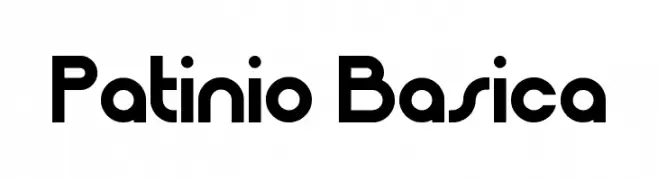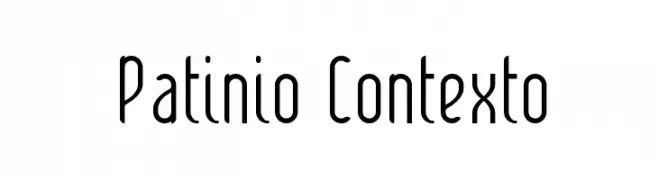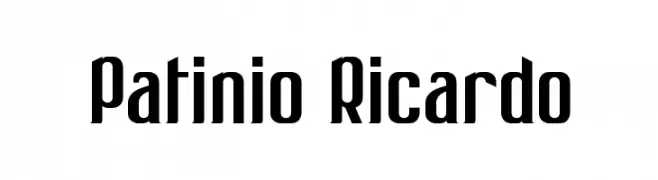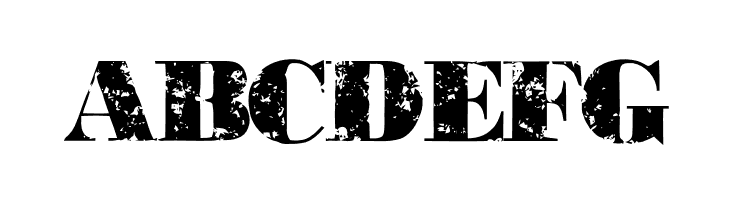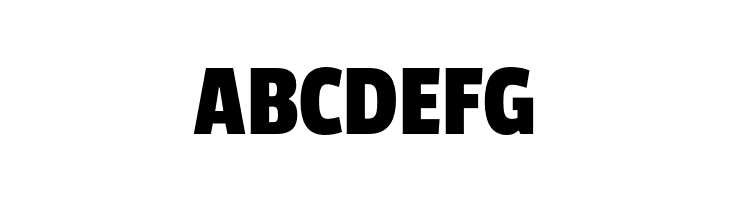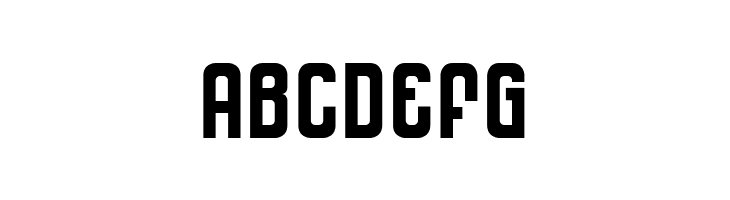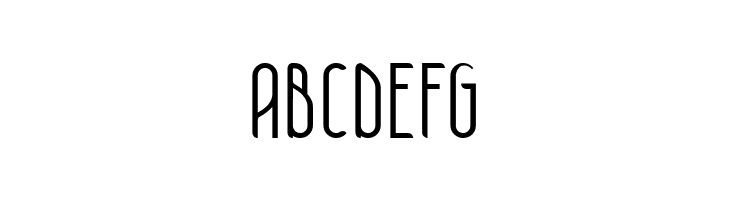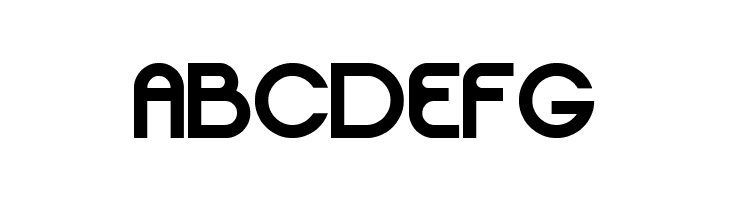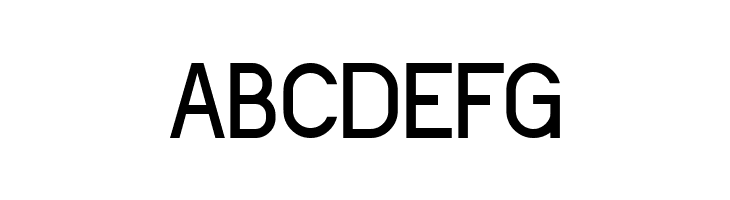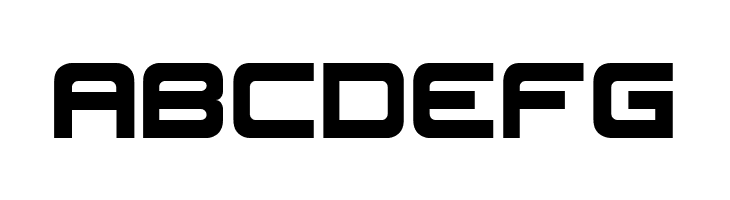
• PassionOne-Regular
A bold, modern font with thick, uniform strokes for impactful design.
• PastDue
A bold, distressed font with a vintage, grunge aesthetic.
• Patinio Basica
A bold, modern font with smooth, rounded edges and balanced proportions.
• Patinio Contexto
A modern, elongated font with a narrow, elegant design.
• Patinio Futura
A modern, geometric sans-serif font with a clean and structured appearance.
• Patinio iAgency
A modern, geometric font with bold, structured characters.
• Patinio iAgency Rounded
A modern, rounded font with a bold, uniform appearance and a futuristic feel.
• Patinio Neue
A modern, clean sans-serif font with excellent readability and versatility.
• Patinio Ricardo
A bold, modern font with a condensed, geometric style.
• Patinio Rotulo
A bold, modern font with a geometric and industrial style.